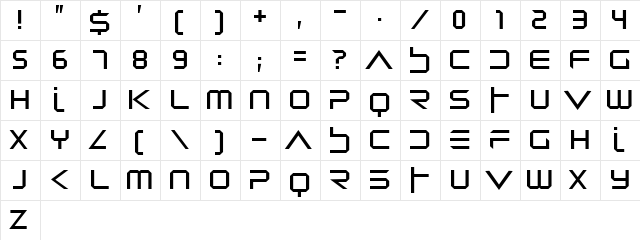
Dredwerkz Regular
Design Context for Dredwerkz Typeface
Dredwerkz takes a measured approach to typography — its balanced proportions and neutral character make it a reliable workhorse for both digital and print work.